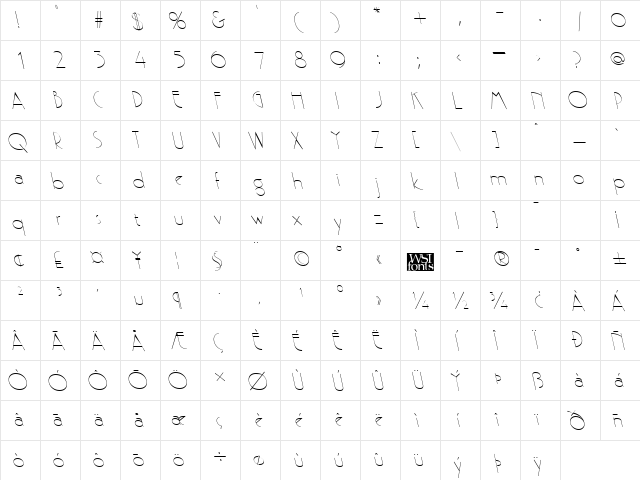
GatsbyBackslant Regular
Design Context for GatsbyBackslant Typeface
GatsbyBackslant offers clean, dependable letterforms without strong stylistic allegiance, making it a practical choice for designers who need flexibility.
Pro Tip: Use GatsbyBackslant in both headline and body roles to test its range before committing to a single application.